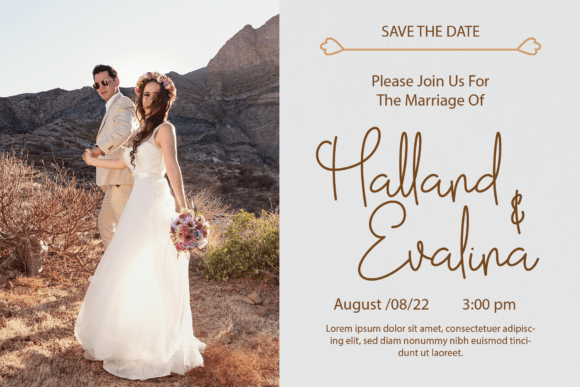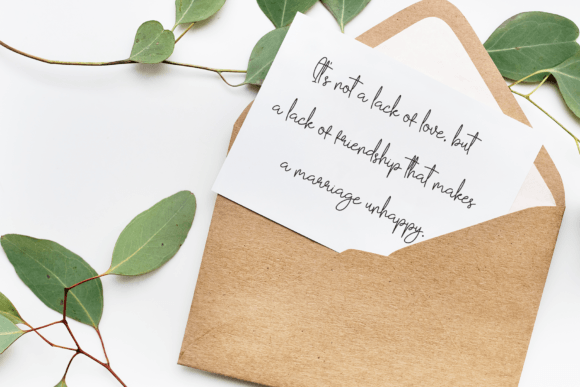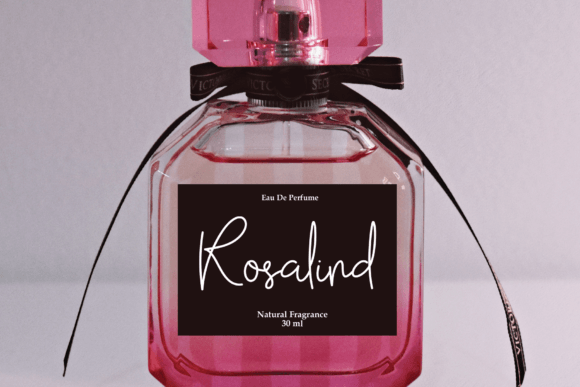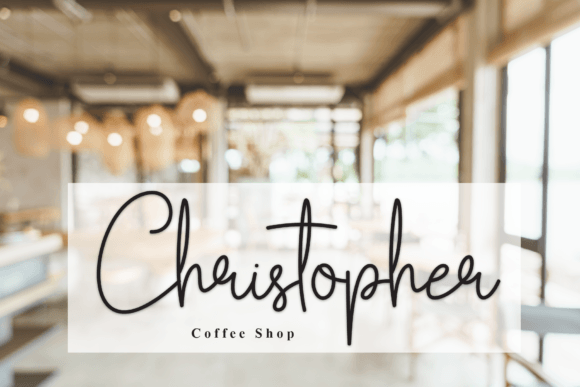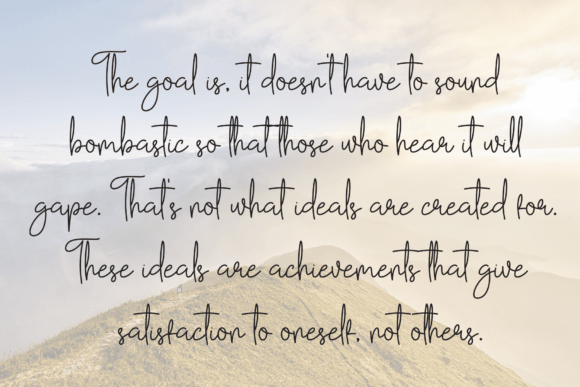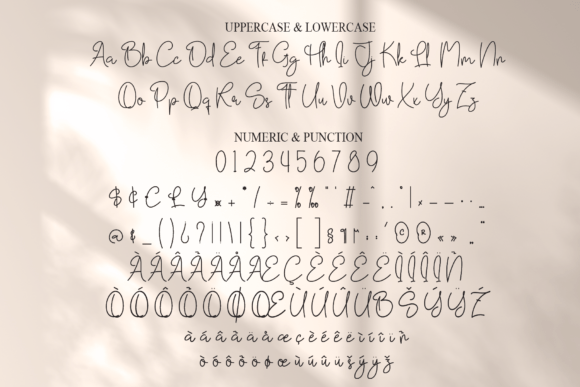
The Perfect Touch of Elegance: Dellinda Signature Font
Have you ever been rummaging through old trunks or dusty drawers, searching for the perfect pen to create something special? The scratch of the nib on paper, the flow of ink, and the personal touch it brings to your work – that’s the magic of handwriting. And that’s exactly what the Dellinda Signature Font aims to capture.
This stylish and elegant font is designed to add a personal touch to invitations, cards, and logos, making your text look fancy and sophisticated. It’s perfect for designers looking to create something unique and eye-catching. Whether you’re a graphic designer, a calligrapher, or a stationery enthusiast, the Dellinda Signature Font is a valuable addition to your toolkit.
Dellinda Signature Font Key Features
- Font Family: Dellinda Signature Font is a unique, elegant script font designed for signatures, logos, and titles.
- Unique Characteristics: Features a beautiful, flowing script design with subtle flourishes, making it perfect for adding a touch of elegance to signatures, logos, and titles.
Dellinda Signature Font Review
I recently had the chance to work with the Dellinda Signature Font, and I must say it’s a lovely addition to any design project. ✨ Here are a few things that work well:
- Beautiful, elegant script lines that add a touch of sophistication to any text.
- Great for creating invitations, certificates, and other formal documents.
However, I did encounter a few limitations:
- ⚠️ Limited font sizes and styles, which can make it difficult to customize for specific needs.
- Not ideal for body text or large blocks of text, as the script lines can be distracting.
Overall, I’d say the Dellinda Signature Font is a great choice for designers looking to add a touch of elegance to their projects. While it may have some limitations, it’s a beautiful and high-quality font that’s worth considering for specific uses.
The Dellinda Signature Font is ideal for creating elegant and sophisticated designs. Some common use cases include:
Alternatives to Dellinda Signature Font
Pacifico is a beautiful, elegant script font that works well for invitations, weddings, and other special occasions. It has a similar feel to Dellinda Signature Font, but with a more relaxed and casual tone. Use Pacifico for projects that require a touch of sophistication and romance.
Comparison to Dellinda Signature Font: Pacifico is more casual and relaxed, with a softer feel. It’s ideal for projects that require a more laid-back vibe, while Dellinda Signature Font is better suited for formal events and high-end branding.
Carolyna Pro is a modern script font that’s perfect for fashion, beauty, and lifestyle brands. It has a similar level of elegance and sophistication to Dellinda Signature Font, but with a more modern and edgy feel. Use Carolyna Pro for projects that require a high-end, fashion-forward look.
Comparison to Dellinda Signature Font: Carolyna Pro is more modern and edgy, with a bolder feel. It’s ideal for projects that require a strong, fashion-forward statement, while Dellinda Signature Font is better suited for more traditional and elegant branding.